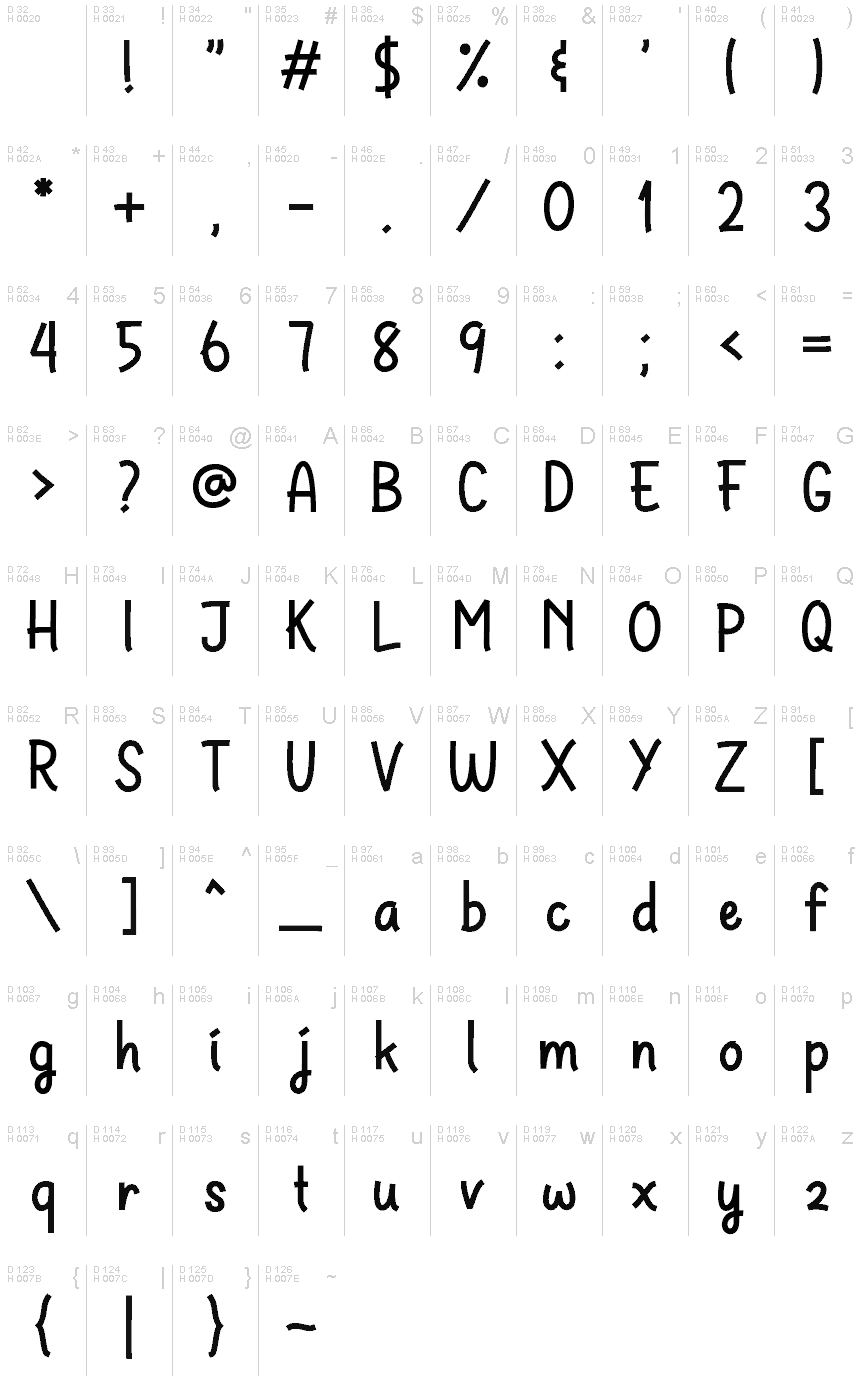
Bill & Jack
Bill & Jack is a Handwritten Sans Serif font. It is perfect for logos, birthday cards, quotes, headlines, posters, Clothing and every other designs.